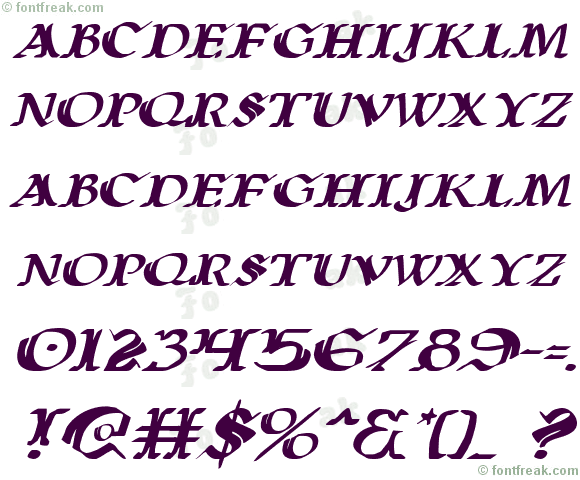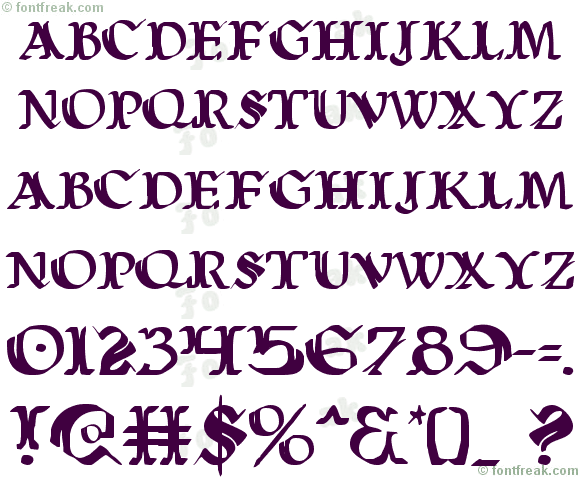
About Wars of Asgard
Wars of Asgard by Iconian Fonts is a striking display font that captures the essence of epic tales and mythical adventures. Released in 2009, this condensed, 3D typeface showcases a unique blend of bold strokes and intricate detailing, making it an ideal choice for projects that require a sense of drama and grandeur. The font features a moderate stroke weight with a high contrast between thick and thin lines, which adds depth and visual interest. The italicized characters convey a sense of movement, perfect for evoking a dynamic atmosphere in design work.
The decorative elements of the Wars of Asgard font include sharp serifs and ornate flourishes that give it a distinctive, fantasy-inspired look. This makes it particularly suitable for use in movie posters, particularly those in the action or fantasy genres, where capturing attention is crucial. Additionally, it can be effectively utilized in video game graphics, merchandise branding, and even themed event invitations, where a touch of adventure is desired.
Targeting graphic designers, small business owners, and content creators, this font offers versatility and a unique aesthetic that can elevate various projects. Whether you're designing promotional materials for a gaming event or creating captivating visuals for social media, the Wars of Asgard font free download can serve as a powerful tool in your creative arsenal.
What sets this font apart is its ability to combine a sense of nostalgia with contemporary design. Its bold presence and intricate details invite viewers to engage with the content, making it a standout choice for those looking to make a lasting impression. With the Wars of Asgard font, your designs can truly resonate with the heroic themes they aim to portray, ensuring that your message is both visually compelling and memorable.